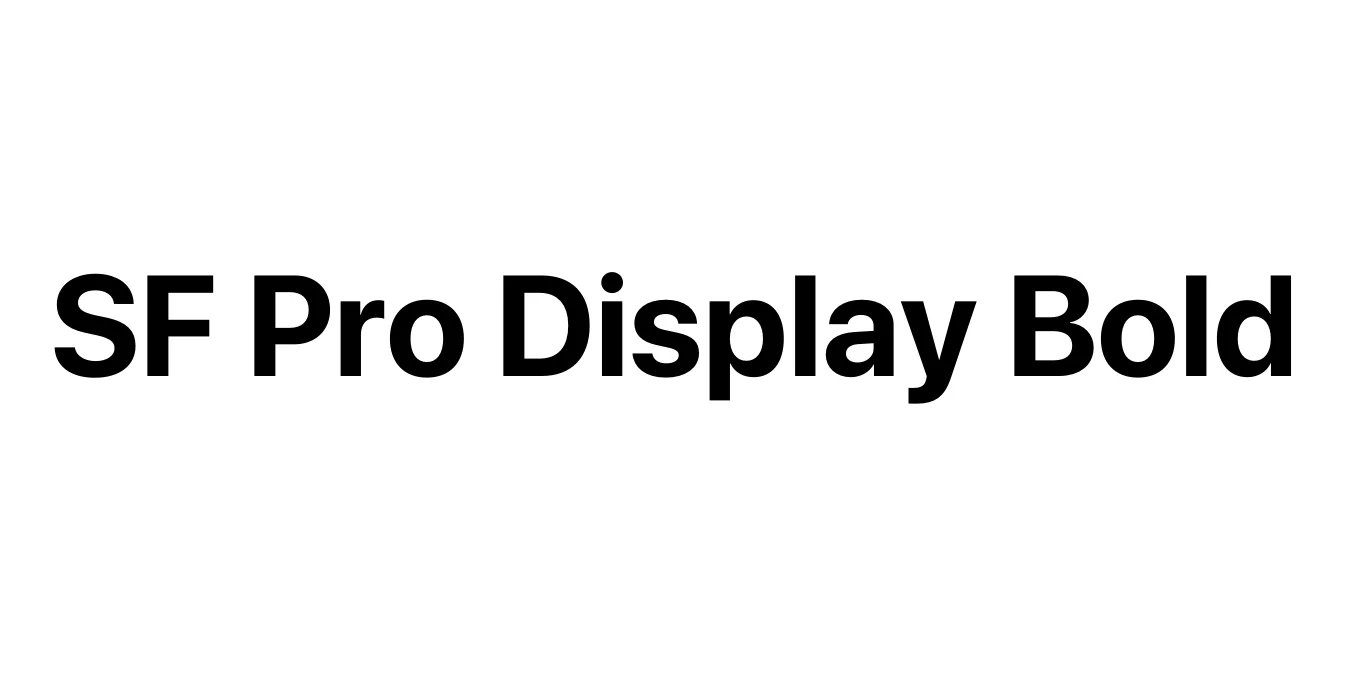
SF Pro Display Bold
Designed by Apple Inc.
SF Pro Display Bold is a cornerstone of Apple's typographic identity, designed internally by the Apple design team to provide a consistent and highly legible experience across its ecosystem. Introduced alongside the Apple Watch and later integrated into iOS and macOS, the San Francisco family was engineered to replace Helvetica Neue. The "Display" version is specifically calibrated for use at larger sizes, typically 20 points or greater, where its tighter letter spacing and refined proportions can shine without sacrificing clarity.
The Bold weight of this typeface is particularly influential in modern UI/UX design, known for its neutral yet friendly neo-grotesque characteristics. Its history is rooted in the need for a versatile font that could scale from the smallest wearable screens to large desktop monitors. Today, it remains a gold standard for digital product design, offering a sleek, professional aesthetic that communicates precision and innovation.
SF Pro Display Bold Best Uses
Primary choice for mobile app headers, navigation titles, and system-level alerts.
Excellent for tech-focused corporate identities looking for a clean, minimalist look.
Highly effective for hero sections and high-impact call-to-action buttons.
Great for large-scale headlines in digital magazines and tech blogs.